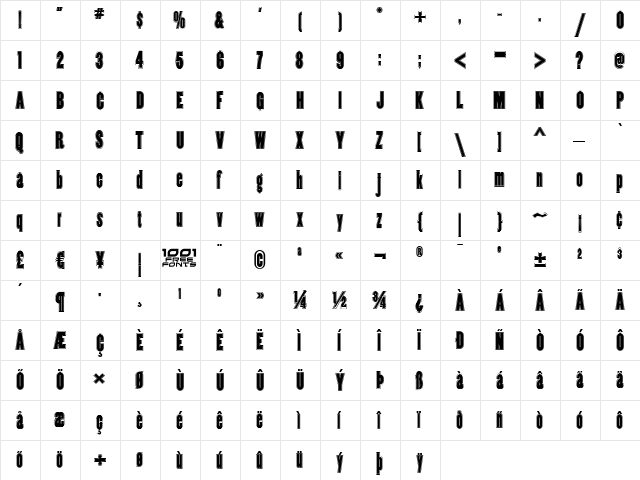
Copper Canyon Inline WBW Regular
Design Context for Copper Canyon Inline WBW Typeface
Copper Canyon Inline WBW is built around its visual character rather than neutral utility — its distinctive forms are designed to make an impression at display sizes.
Font Pairing: Pair with a clean neutral sans-serif for body copy to let Copper Canyon Inline WBW's character lead without overwhelming the composition.
Pro Tip: Treat Copper Canyon Inline WBW as the centrepiece of your typographic hierarchy. One strong heading set in a decorative face can carry an entire layout.